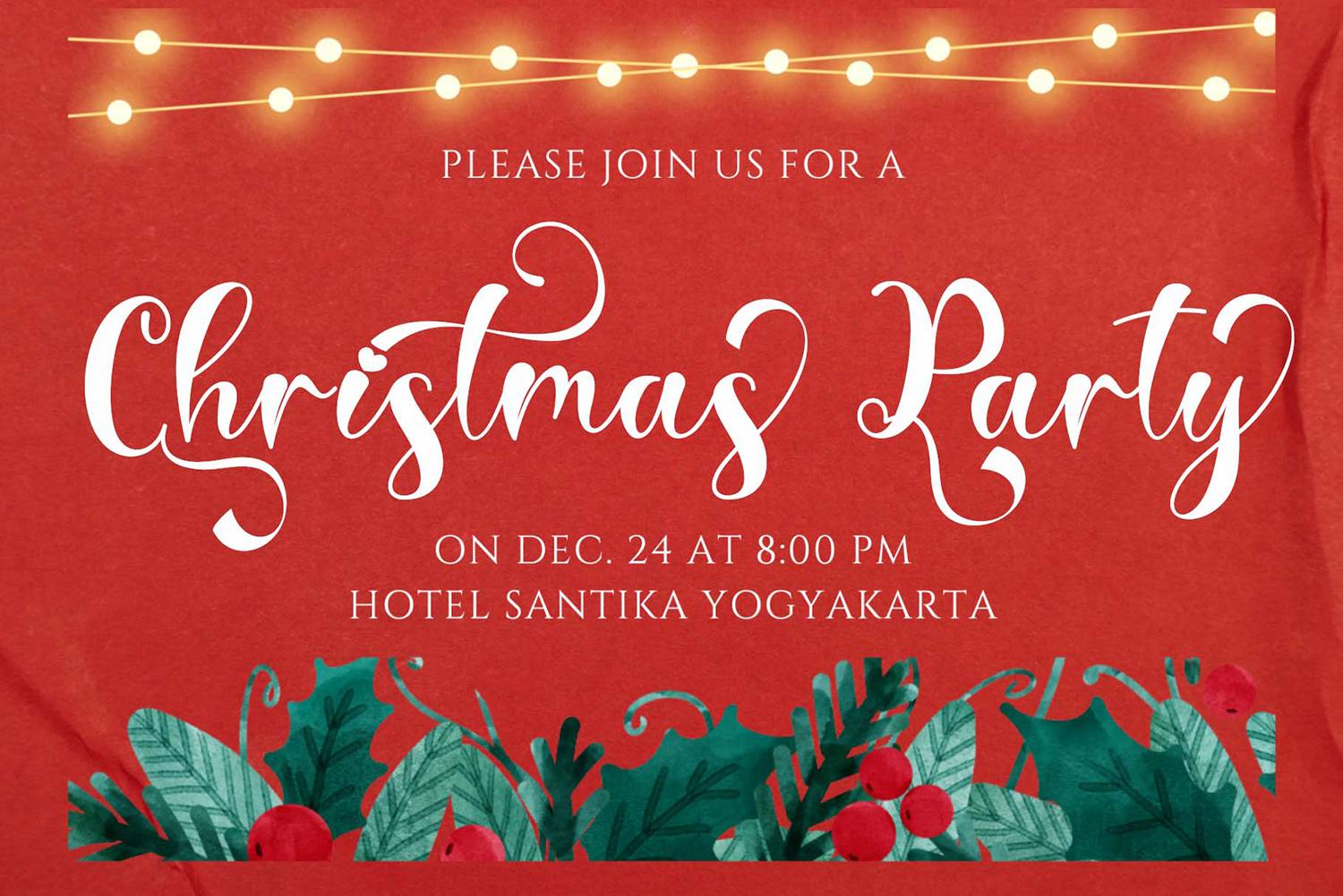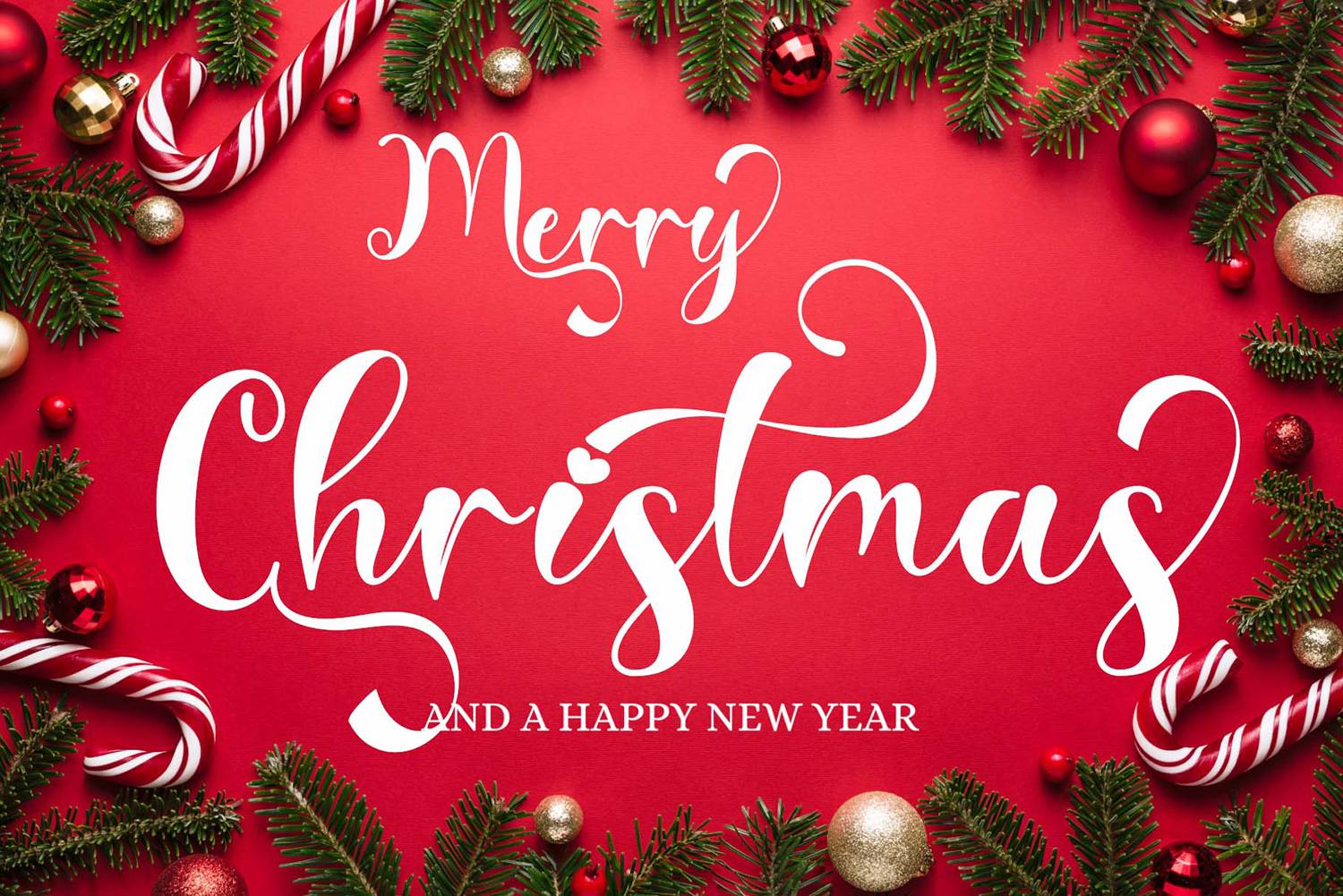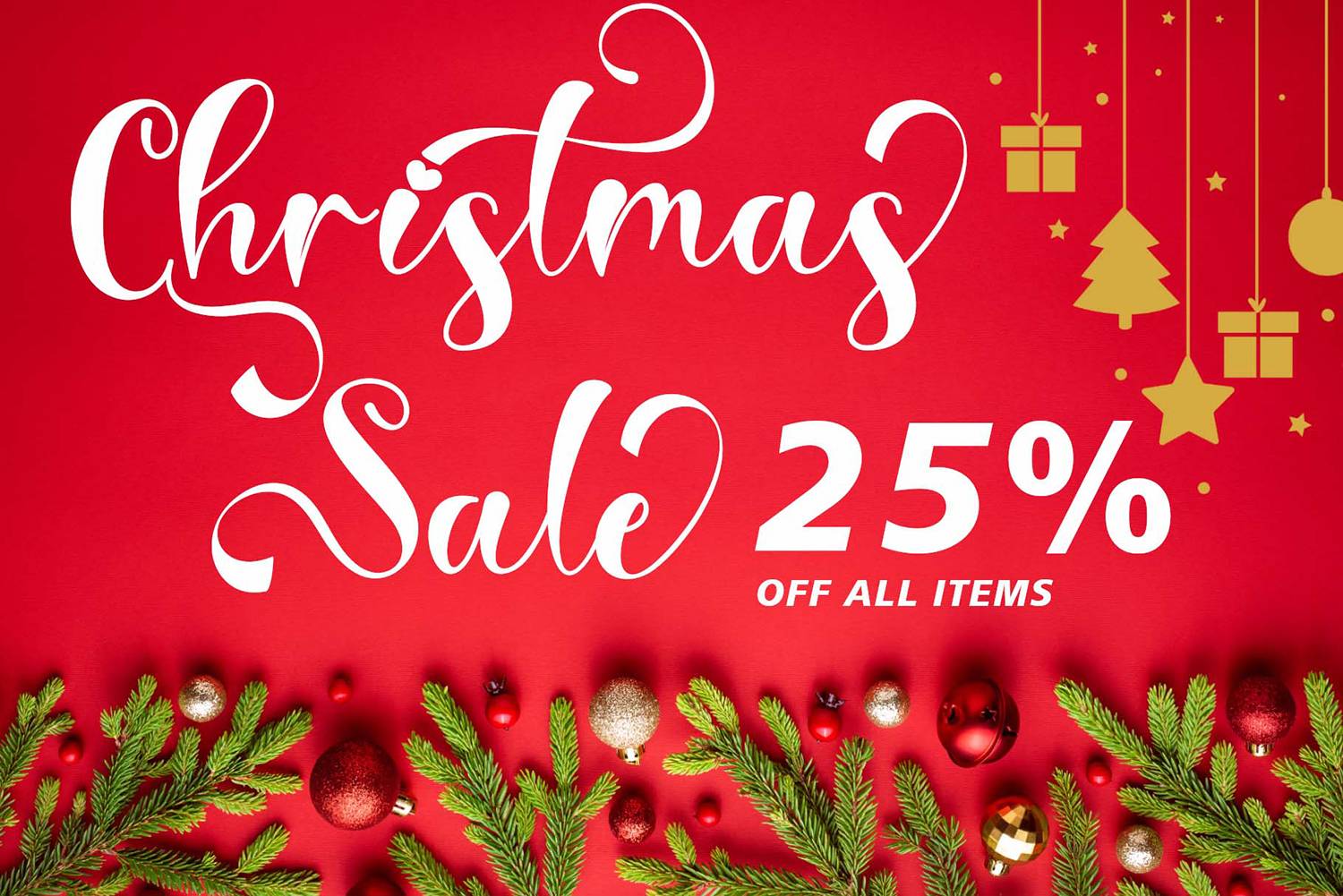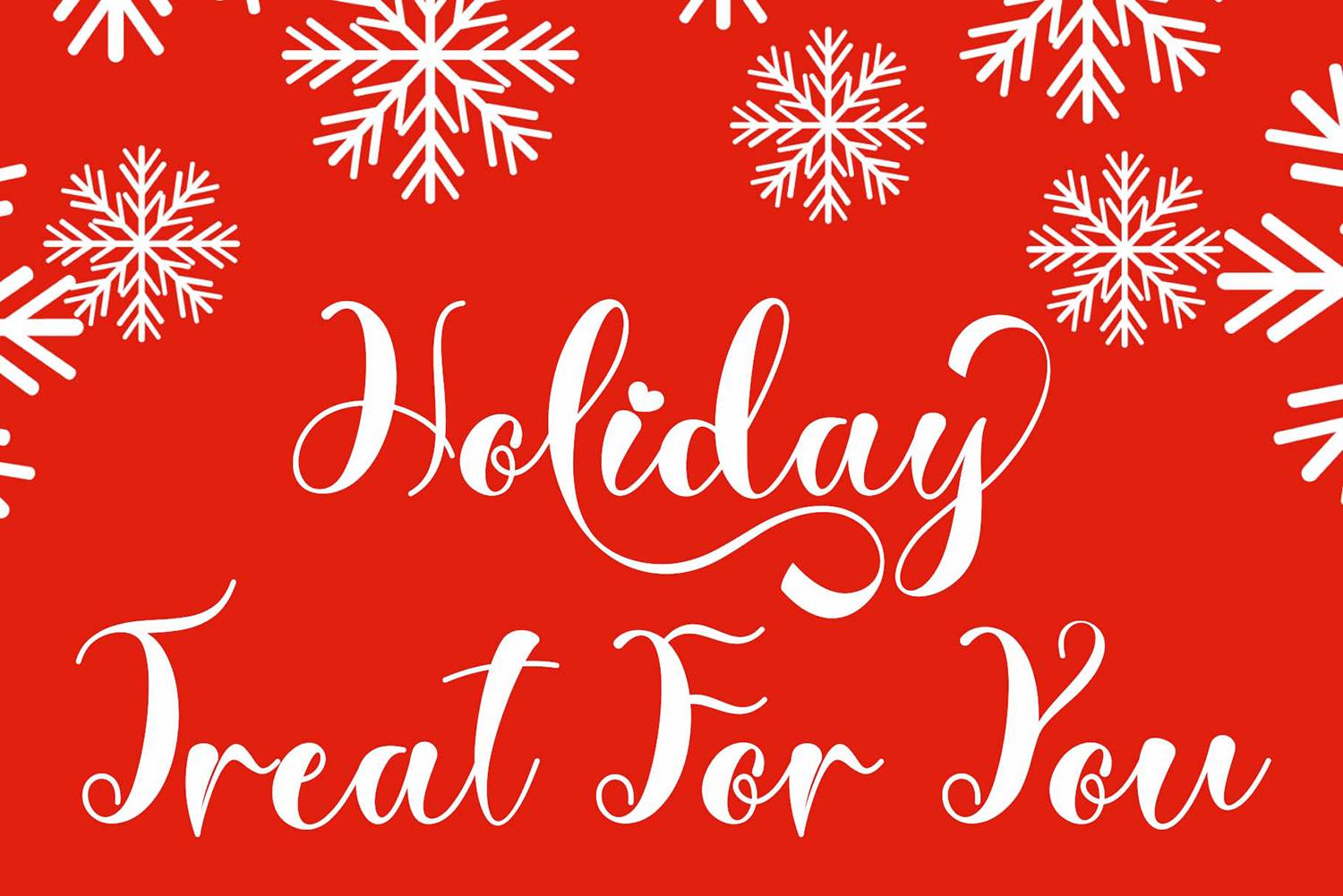
Christmas Style Font is a decorative script font with elegant, flowing strokes and playful swirls, perfect for adding a festive and cheerful vibe to any design. Its high contrast between thick and thin lines, combined with unique, curly details and a lively rhythm, makes it ideal for holiday-themed invitations, greeting cards, and seasonal branding. This stylish and charming font brings warmth and personality, capturing the joyful spirit of the Christmas season beautifully.
Christmas Style Font
About Christmas Style Font
| Font family | Christmas Style Font |
| Designer | Yoga Letter 2022 (Isroni Yoga Prasetya) |